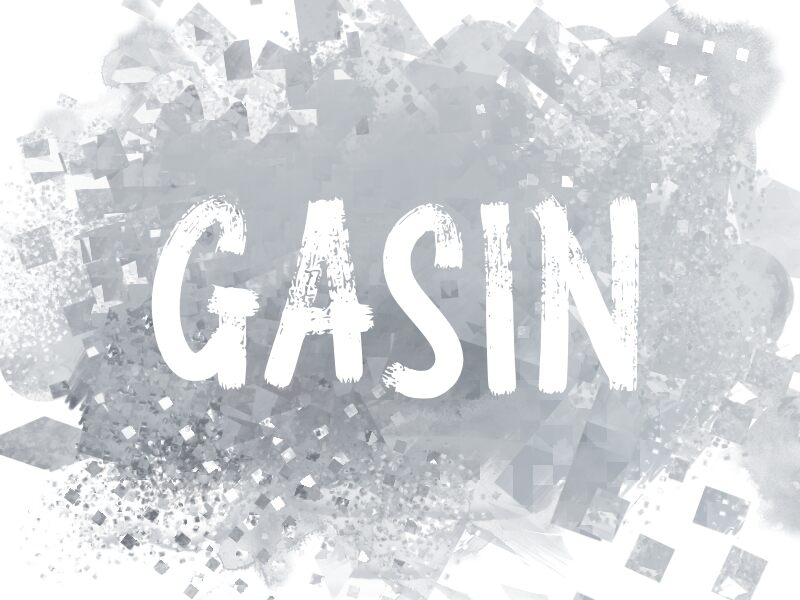
Gasin
Gasin, crafted by the designer wep, exudes an edgy and raw energy with its distinct trash script style. Visually striking with its condensed width, this font features bold, painterly strokes that give it a gritty yet artistic edge. The unique texture of each letter makes Gasin perfect for projects seeking an urban or rebellious vibe.
Whether you're designing for modern street art displays, edgy advertising campaigns, or dynamic headlines that demand attention, Gasin delivers a visually compelling experience. Ideal for creating standout posters, eye-catching logos, and engaging social media graphics, this font infuses every project with a mark of individuality and bold expression.